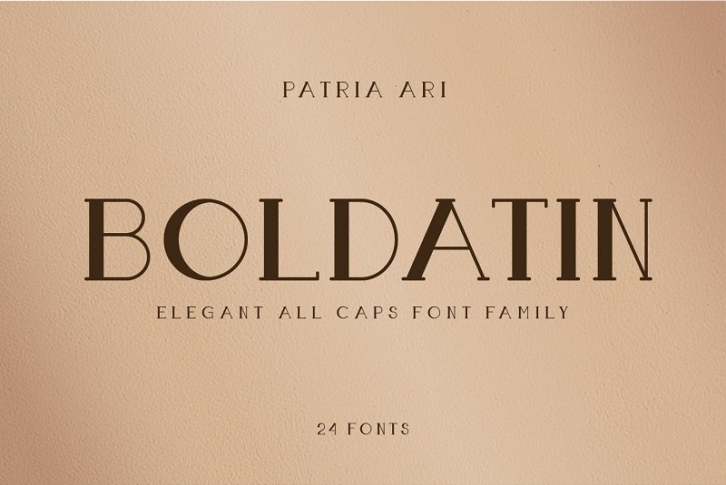
Boldatin Family is a trendy and unique font with an authentic style. It was designed by Patria Ari and it's a great choice for creative people who need such a font. It was released on August 1, 2020 and the file size is 14.91 MB. Boldatin Family will add an organic vibe to any design idea!